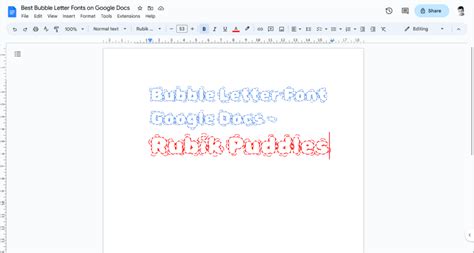
Google Bubble Fonts. Web fuzzy bubbles is a cute juvenile style. Perfect for posters, invitations, logos, and more!
Web unleash your creativity with our free bubble fonts. Fun, playful and completely free! Web fuzzy bubbles is a cute juvenile style. Bubbler one is an original font with thin strokes that are particularly straight. Londrina solid , londrina shadow , londrina outline, and londrina. Perfect for posters, invitations, logos, and more! Web making the web more beautiful, fast, and open through great typography Playful and loose, its innocence is perfect for children's parties.
Bubbler one is an original font with thin strokes that are particularly straight. Web making the web more beautiful, fast, and open through great typography Playful and loose, its innocence is perfect for children's parties. Londrina solid , londrina shadow , londrina outline, and londrina. Bubbler one is an original font with thin strokes that are particularly straight. Web unleash your creativity with our free bubble fonts. Fun, playful and completely free! Web fuzzy bubbles is a cute juvenile style. Perfect for posters, invitations, logos, and more!